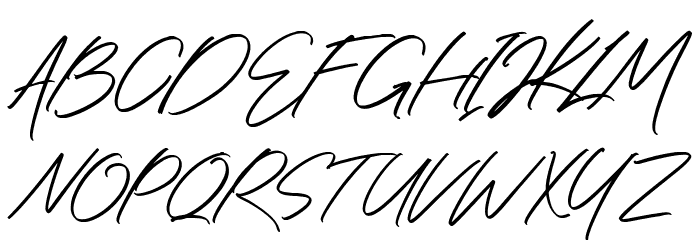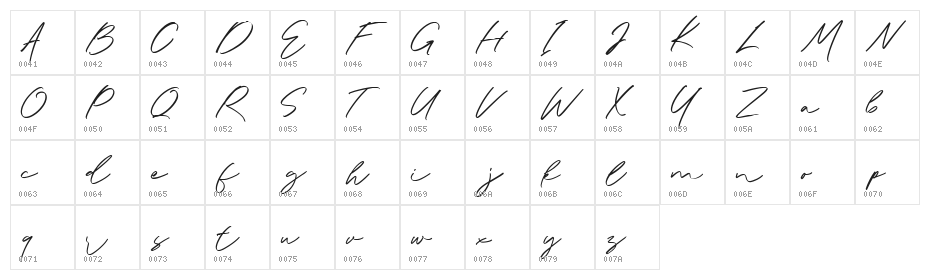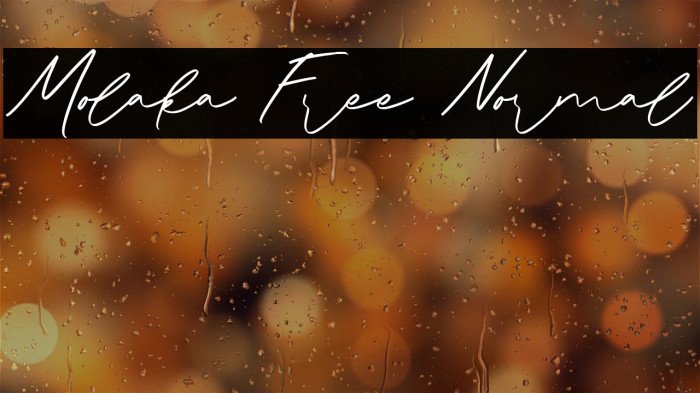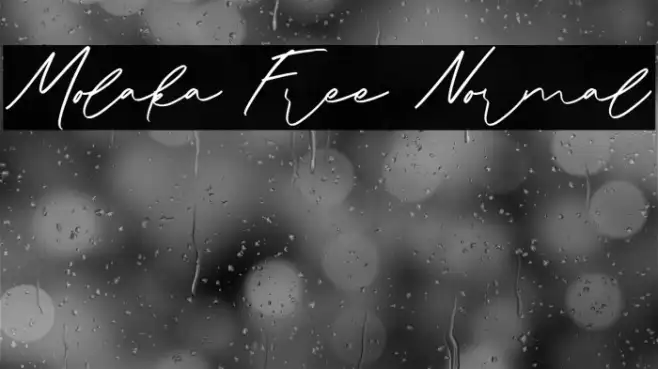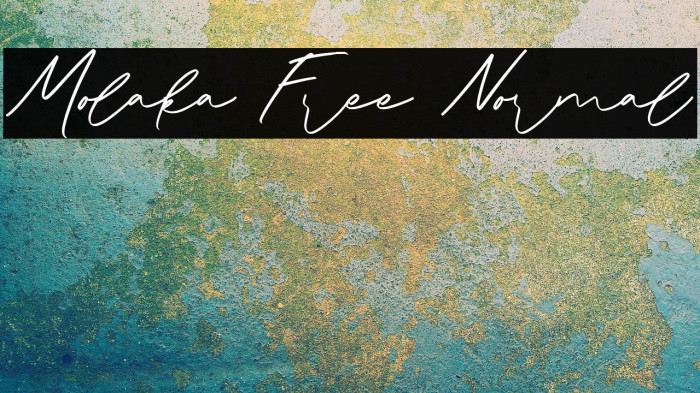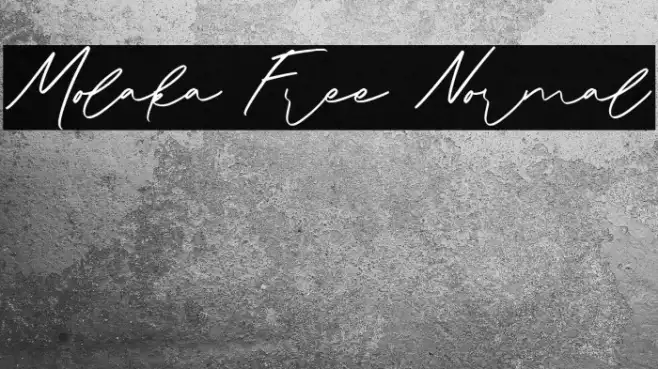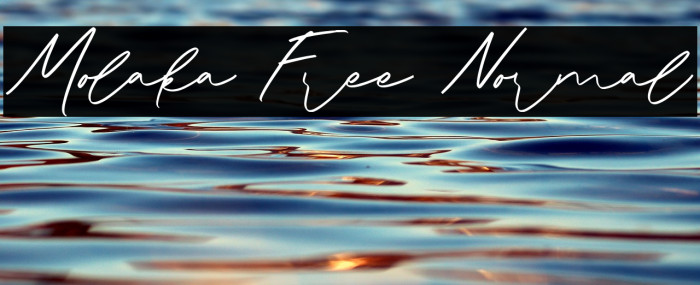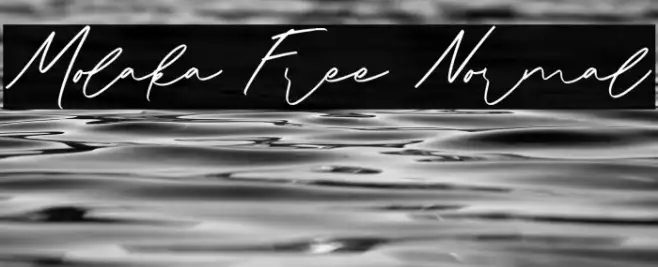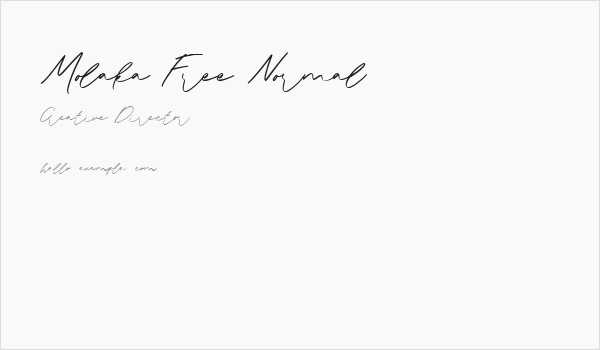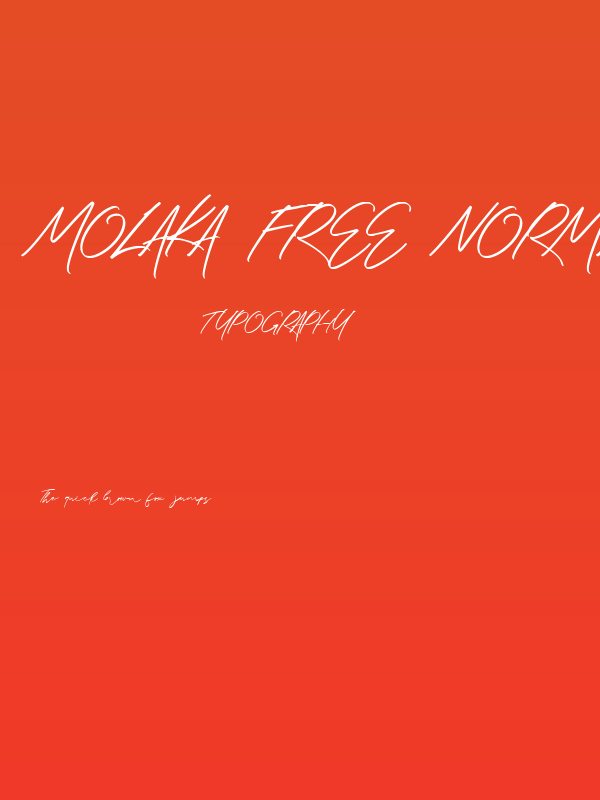
Molaka Free Normal Font
Molaka Free Normal Description
This font exhibits a dynamic and fluid handwritten style, characterized by its elegant and flowing script. The letters are interconnected with smooth, sweeping strokes, giving it a natural and personal touch. The uppercase letters are bold and expressive, while the lowercase letters maintain a consistent rhythm and balance. The font's overall appearance is both stylish and approachable, making it suitable for a variety of creative applications. Its cursive nature adds a sense of movement and grace, ideal for projects that require a personal or artistic flair.
| Proposed Projects | Ideal for wedding invitations, greeting cards, personal branding, and artistic projects. |